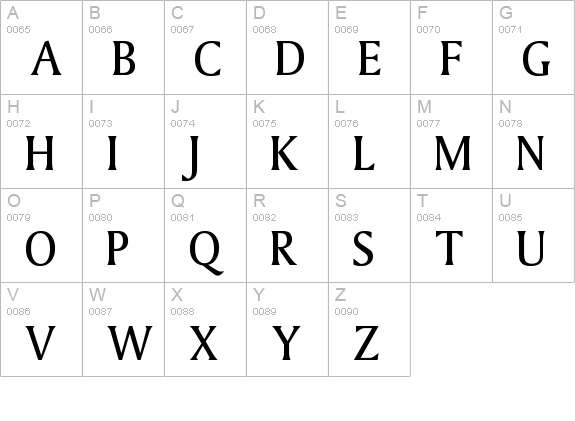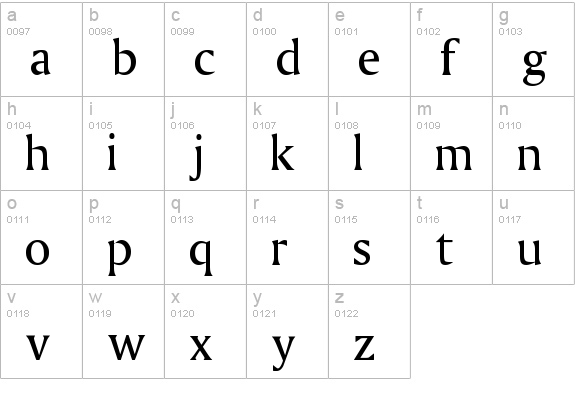
Foxy Font Details
Introducing Foxy font, a stylish and versatile typeface that brings a touch of elegance to any design project. With its sleek lines and modern aesthetic, Foxy is perfect for a wide range of applications, from branding to editorial design. This free font is not only visually appealing but also easy to read, making it a great choice for both print and digital projects. Foxy font is freely available for download at FontsMarket.com, where you can easily access this high-quality typeface without any cost. Whether you're working on a logo, poster, website, or any other creative endeavor, Foxy font is sure to elevate your design and make a lasting impression. Embrace the sophistication and charm of Foxy font today and take your projects to the next level.